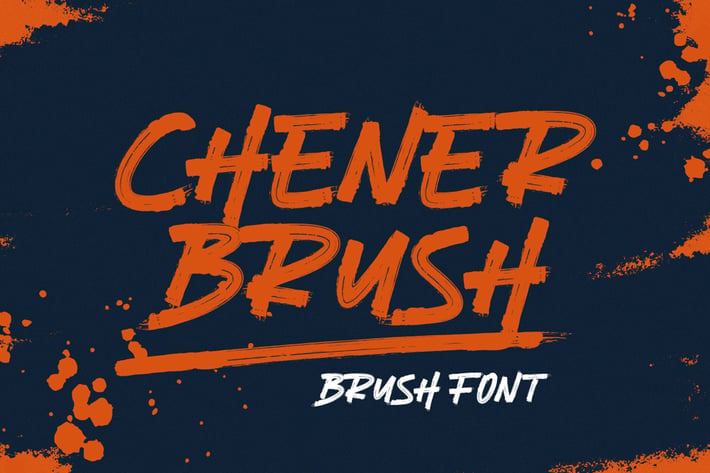
Chener Brush - Handbrush Font
Unleash your creativity with Chener Brush, a dynamic handbrush font that adds energy and spontaneity to your designs. Whether you're working on posters, logos, merchandise, or social media graphics, Chener Brush infuses your projects with an expressive and authentic vibe.
Its natural brush strokes and varied thickness give your text a lively and organic feel, making it ideal for conveying personality and emotion in your designs.
Designed with versatility in mind, Chener Brush is perfect for both digital and print projects. It's easy to use and pairs well with other fonts and design elements, allowing you to customize and experiment to your heart's content.
Whether you're a seasoned designer or just starting out, Chener Brush empowers you to create impactful and memorable designs that stand out from the crowd.